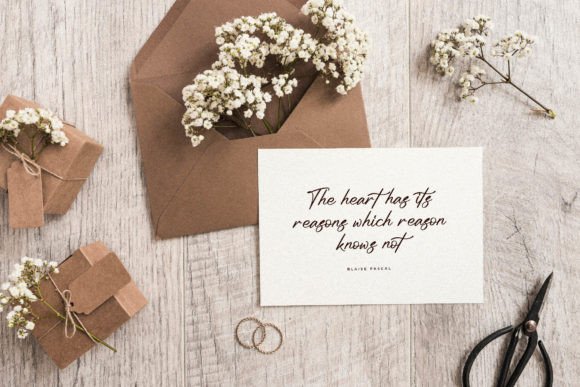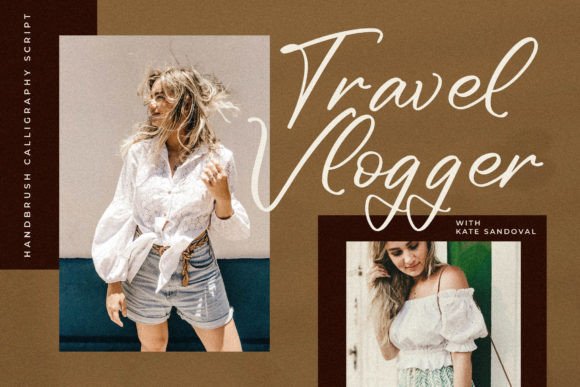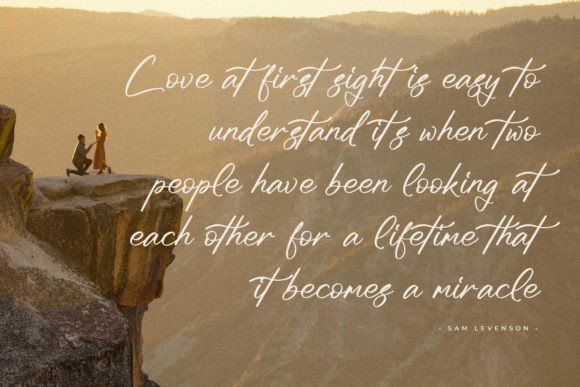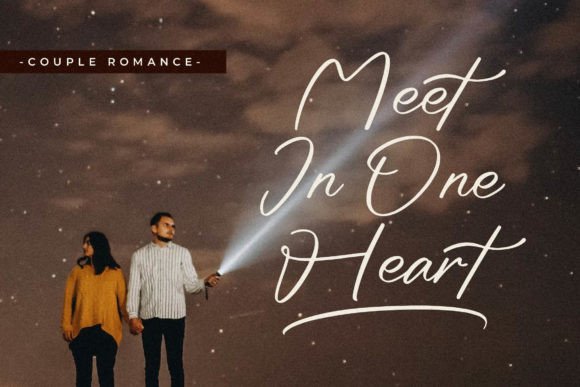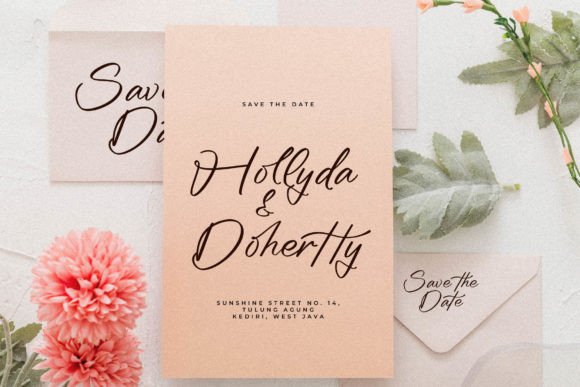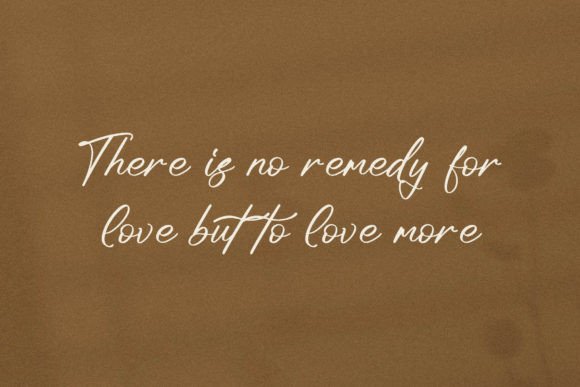
Adding a Touch of Romance to Your Designs
Have you ever found yourself scribbling love notes on a worn-out notebook, the pen gliding effortlessly across the page as the words spill out from the heart? It’s a moment of pure creative freedom, and one that many designers can relate to. As we pour our emotions onto the page, we seek to convey the essence of our feelings in a way that’s both genuine and captivating.
| 📌 Product Name | Jejak Cintta Font |
| 👤 Author | Glorytype Studio |
That’s where Jejak Cintta Font comes in – a beautiful, handwritten script font that’s designed to evoke the same emotions. With its wide range of applications, from greeting cards to headlines, Jejak Cintta Font is the perfect tool for adding a touch of romance to your next project. Whether you’re a seasoned designer or a creative enthusiast, this font is sure to become your go-to for adding a personal touch to your work.
Key Features of “Jejak Cintta Font”
- Unique Characteristics: This font features a unique blend of traditional and modern elements, with intricate details and ornaments that evoke a sense of elegance and sophistication.
- Font Style: Script, Calligraphy
Review of Jejak Cintta Font
Jejak Cintta Font is a beautiful script font that catches the eye with its elegant and cursive design. ✨ One of its strongest features is its versatility, making it suitable for a wide range of applications, from invitations to logo designs.
- Unique and expressive design that conveys a sense of emotion and personality.
- Extremely versatile, suitable for various design projects and industries.
- Beautifully crafted, with intricate details that add to its charm.
However, there are some limitations to consider. ⚠️ For one, the font may not be as readable in small sizes or when used extensively in body text. Additionally, some characters may not be available or may be inconsistent across different platforms.
Overall, I would say that Jejak Cintta Font is a great choice for designers looking to add a touch of elegance and sophistication to their designs. While it may have some limitations, its unique design and versatility make it a valuable addition to any design library.
The Jejak Cintta Font is ideal for:
Special occasion cards and gift tags
Branding and typography projects
Custom typography designs